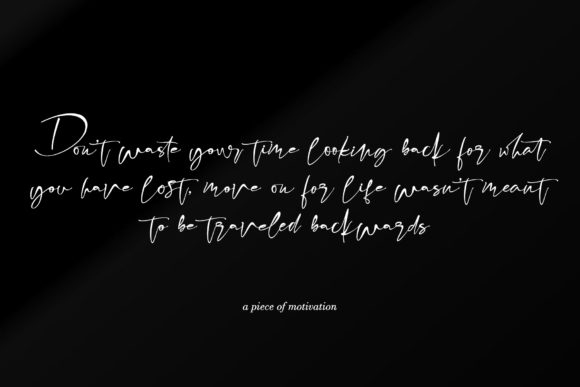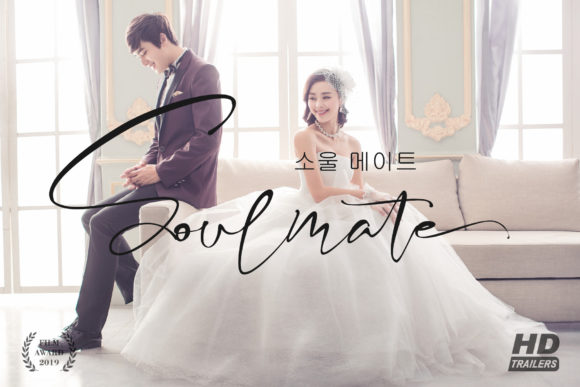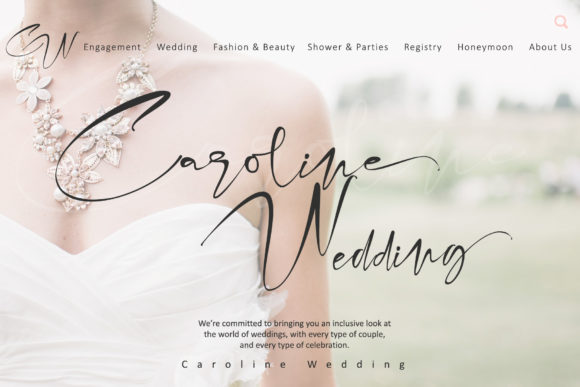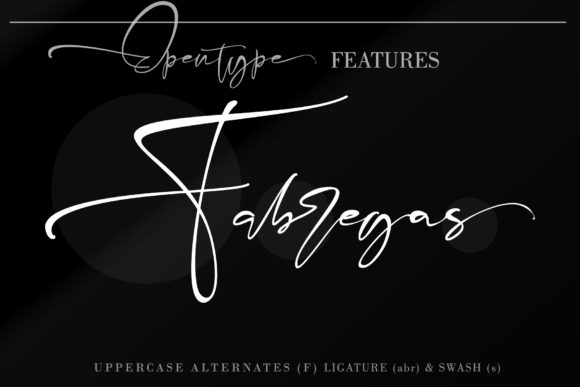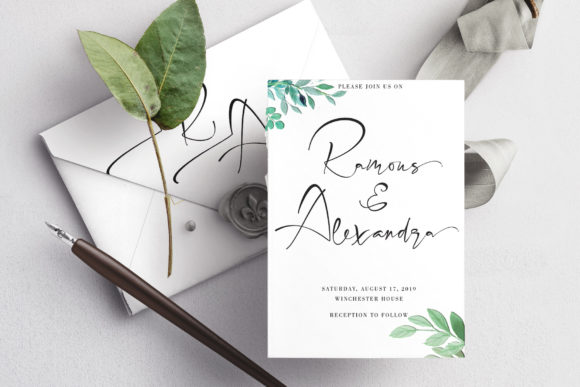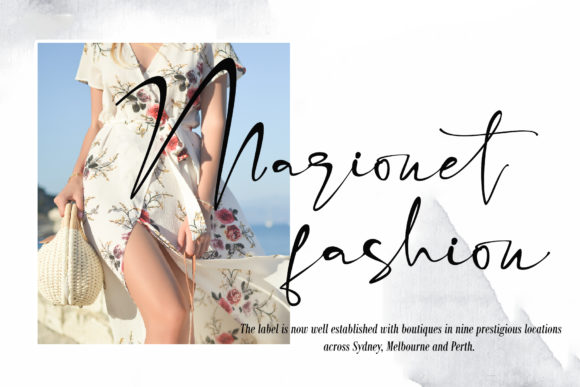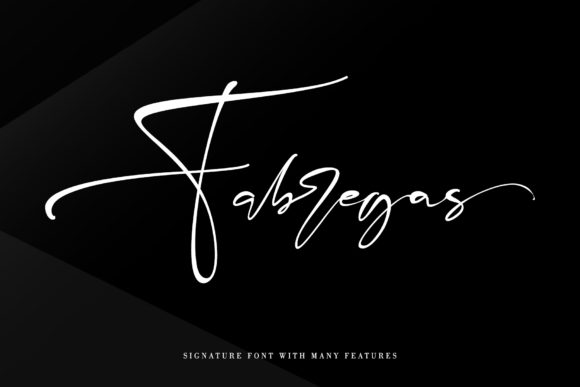
Introducing Fabregas Font: A Handwritten Signature Font with a Natural & Stylish Flow
Are you tired of using the same old fonts for your designs? Do you want to add a touch of elegance and sophistication to your projects? Look no further than Fabregas Font, a beautiful handwritten signature font that is sure to take your designs to the next level. With its natural and stylish flow, Fabregas Font is perfect for designers and crafters who want to add a personal touch to their work.
What is Fabregas Font?
Fabregas Font is a handwritten signature font that is designed to mimic the natural flow of handwriting. With its unique and stylish strokes, Fabregas Font is perfect for creating beautiful signatures, quotes, and phrases that will add a touch of elegance to any design. Whether you’re working on a logo, a poster, or a social media graphic, Fabregas Font is sure to make your design stand out.
Key Features of Fabregas Font
- Handwritten Signature Font: Fabregas Font is a handwritten signature font that is designed to look like it was written with a pen. Its natural and stylish flow makes it perfect for creating beautiful signatures and quotes.
- Natural & Stylish Flow: Fabregas Font has a unique and stylish flow that is sure to add a touch of elegance to any design. Its natural strokes and curves make it perfect for creating beautiful and eye-catching text.
- Easy to Read: Despite its handwritten nature, Fabregas Font is easy to read and understand. Its clear and concise strokes make it perfect for creating quotes, phrases, and signatures that are easy to read.
- Versatile: Fabregas Font is a versatile font that can be used for a variety of design projects. Whether you’re working on a logo, a poster, or a social media graphic, Fabregas Font is sure to make your design stand out.
Why Use Fabregas Font?
There are many reasons why you should use Fabregas Font for your design projects. Here are just a few:
- Add a Personal Touch: Fabregas Font is a handwritten signature font that is designed to add a personal touch to your designs. With its natural and stylish flow, Fabregas Font is perfect for creating beautiful signatures and quotes that will make your designs stand out.
- Stand Out from the Crowd: Fabregas Font is a unique and stylish font that is sure to make your designs stand out from the crowd. Whether you’re working on a logo, a poster, or a social media graphic, Fabregas Font is sure to grab attention.
Fabregas Font is a beautiful handwritten signature font that is sure to take your designs to the next level. With its natural and stylish flow, Fabregas Font is perfect for designers and crafters who want to add a personal touch to their work. Whether you’re working on a logo, a poster, or a social media graphic, Fabregas Font is sure to make your design stand out. So why wait? Download Fabregas Font today and start creating beautiful designs that will leave a lasting impression.